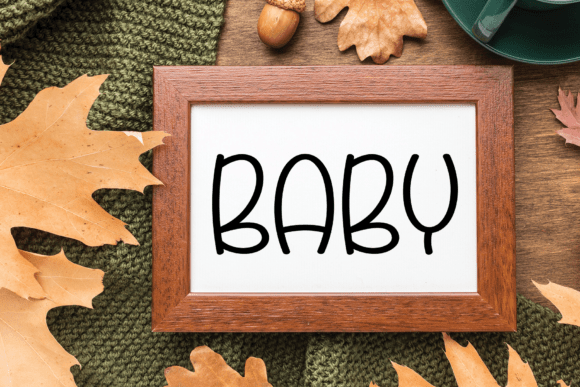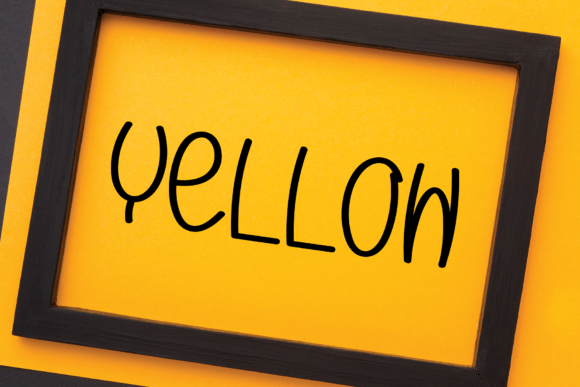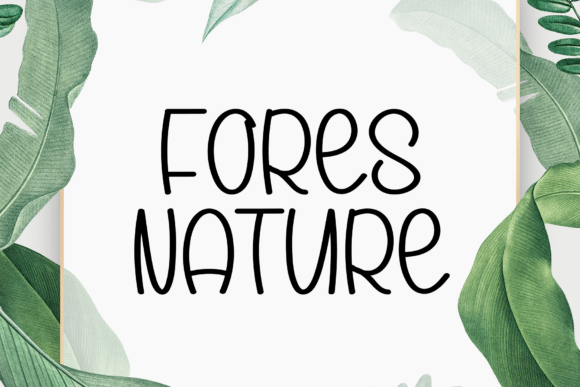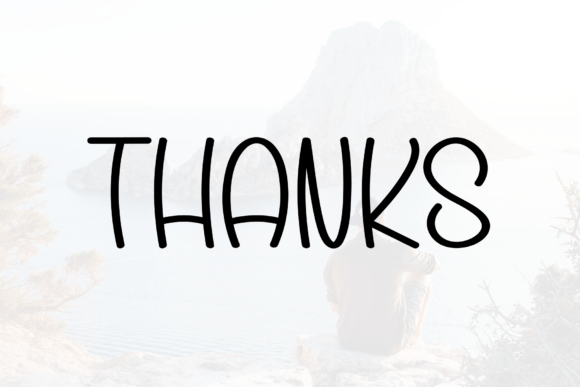
Introduction to Beach Angela Font
Have you ever stumbled upon a font that makes you feel like you’re walking on the beach, feeling the warm sand between your toes and the cool ocean breeze on your skin? For designers, finding that perfect font can be a game-changer. It’s the moment when everything clicks, and your creative project starts to take shape. For me, that moment came when I discovered the charming Beach Angela Font.
With its smooth strokes and organic lines, Beach Angela Font is more than just a pretty face – it’s a design resource that can elevate your branding, invitations, and social media graphics to new heights. Whether you’re working on a high-quality project or just need a free download to get you started, Beach Angela Font is a versatile and valuable asset that’s sure to impress.
Key Features of Beach Angela Font
- Unique, hand-drawn design with a playful and creative touch, perfect for a variety of design projects.
Honest Review: Beach Angela Font
I recently stumbled upon the Beach Angela Font while searching for a unique design resource for a creative project. I was excited to try it out and see if it would add some personality to my design.
Here are some things that I think work well:
- ✨ The font has a transparent background, making it easy to use in various design scenarios.
- ✨ The unique style and design of the font make it perfect for adding a touch of personality to your project.
- ⚠️ The font may not be suitable for all types of projects, as its unique style may not appeal to everyone.
- ⚠️ The font may not be as versatile as other fonts, as it’s primarily designed for creative projects.
Overall, I’m really impressed with the Beach Angela Font. It’s a high-quality design resource that’s perfect for adding a touch of personality to your creative project. While it may have some limitations, I think it’s a great addition to any designer’s toolkit.
Common Use Cases for the Beach Angela Font
The Beach Angela Font is ideal for creative projects such as beach-themed invitations, summer-inspired graphics, and watercolor-style designs. Its transparent background and high-quality design make it a versatile resource for a wide range of design applications.